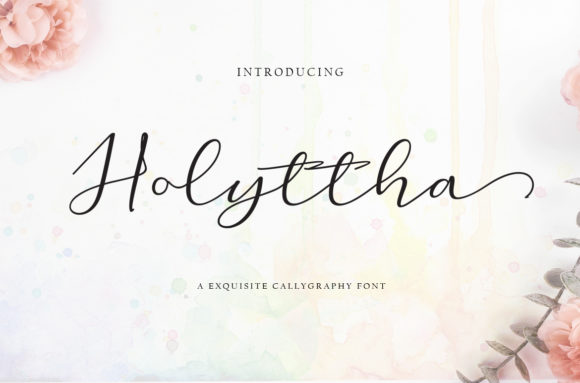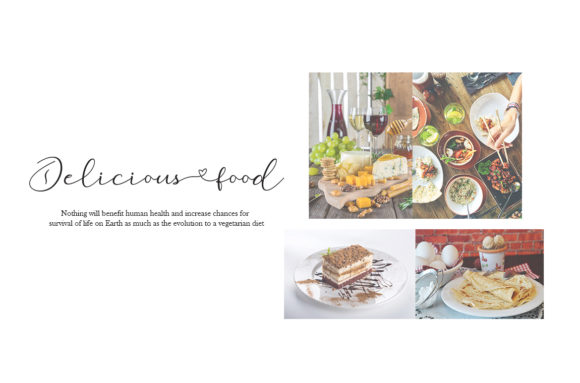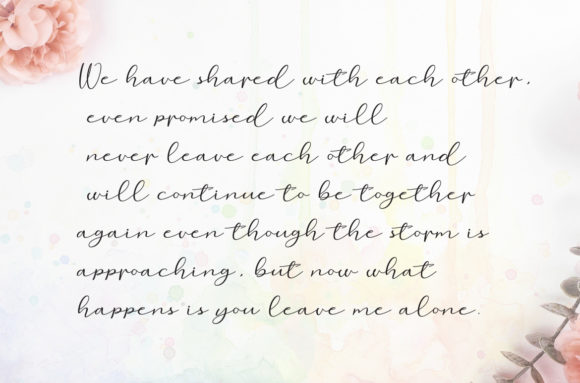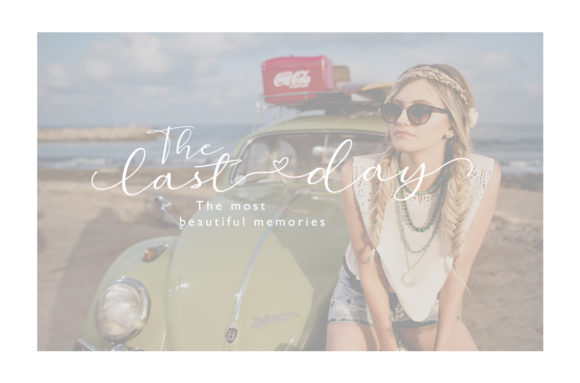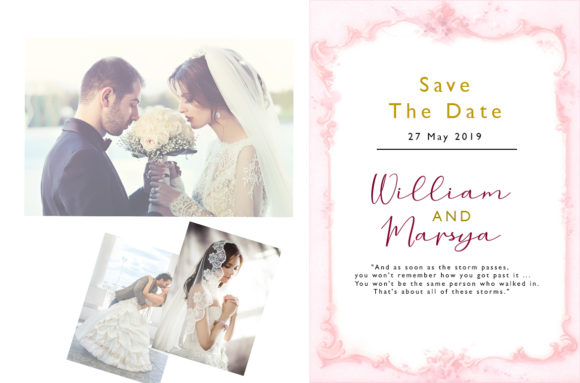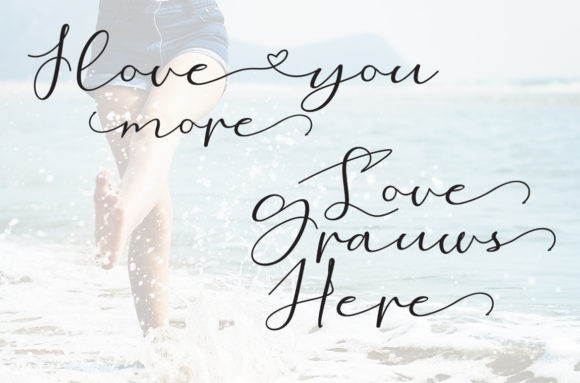
Holyttha Font
About Holyttha Font
Holyttha is a unique and fun script font with a beautiful feel. It will add an authentic spark to any design project!